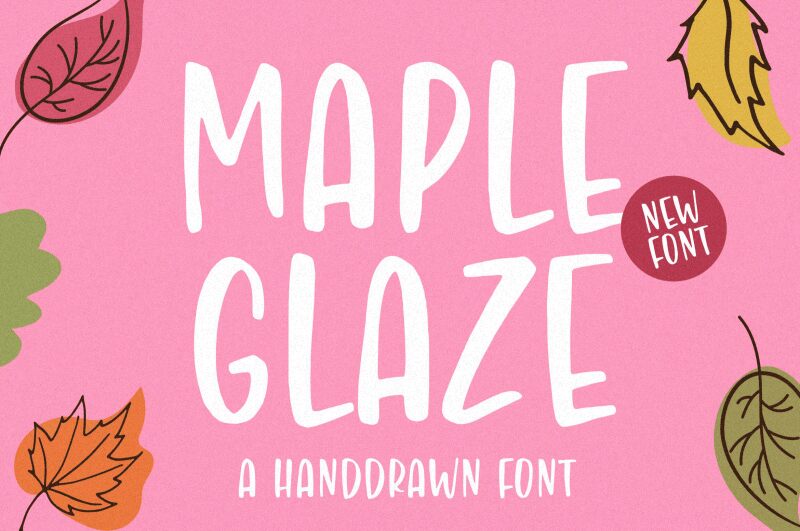
Maple Glaze
Maple Glaze font by Balpirick Studio is a condensed brush script characterized by a casual handwritten style, organic flow, and modern vibe. This free handwritten font carries an approachable aesthetic and warm mood that can stand out in all your projects.
Use it for branding, packaging, posters, labels, logos, social media headers, magazine layout designs, book covers, prints on different products from t-shirts to mugs. It's suitable for both digital and print media projects.ー